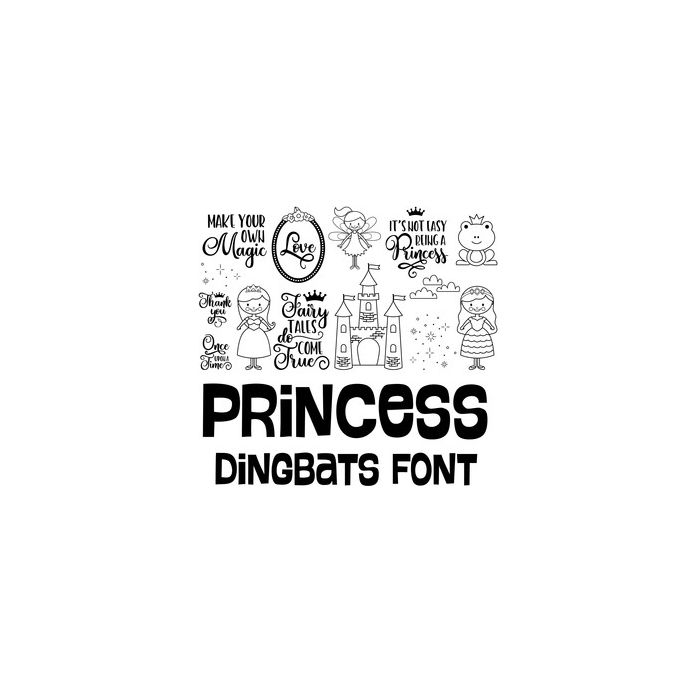
This cute dingbat font includes 26 princess icons and phrases that you can type + cut. Make adorable projects quickly and easily with the characters in this fun font. For ideas and inspiration visit www.loriwhitlock.com and www.facebook.com/lori.whitlock.studio. For Lori's video tutorials visit www.youtube.com/loriwhitlock. For a full tutorials list visit www.loriwhitlock.com/blog/tutorials.